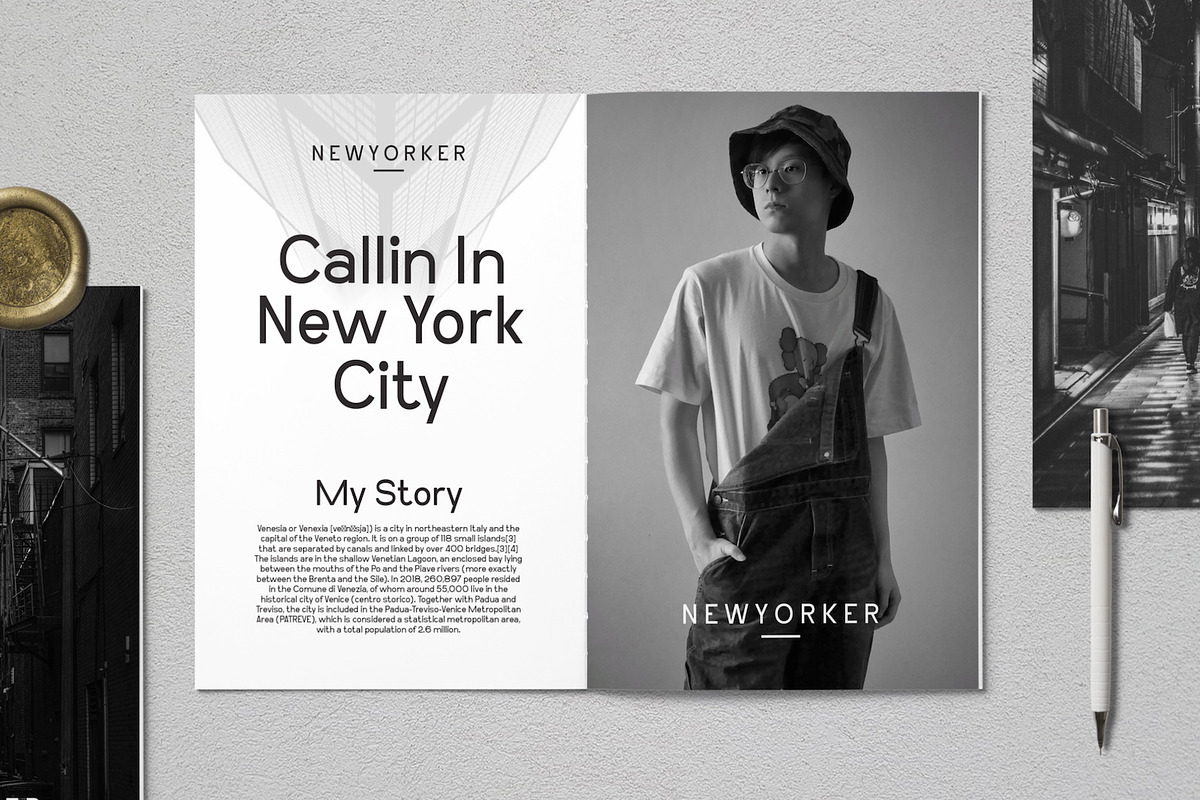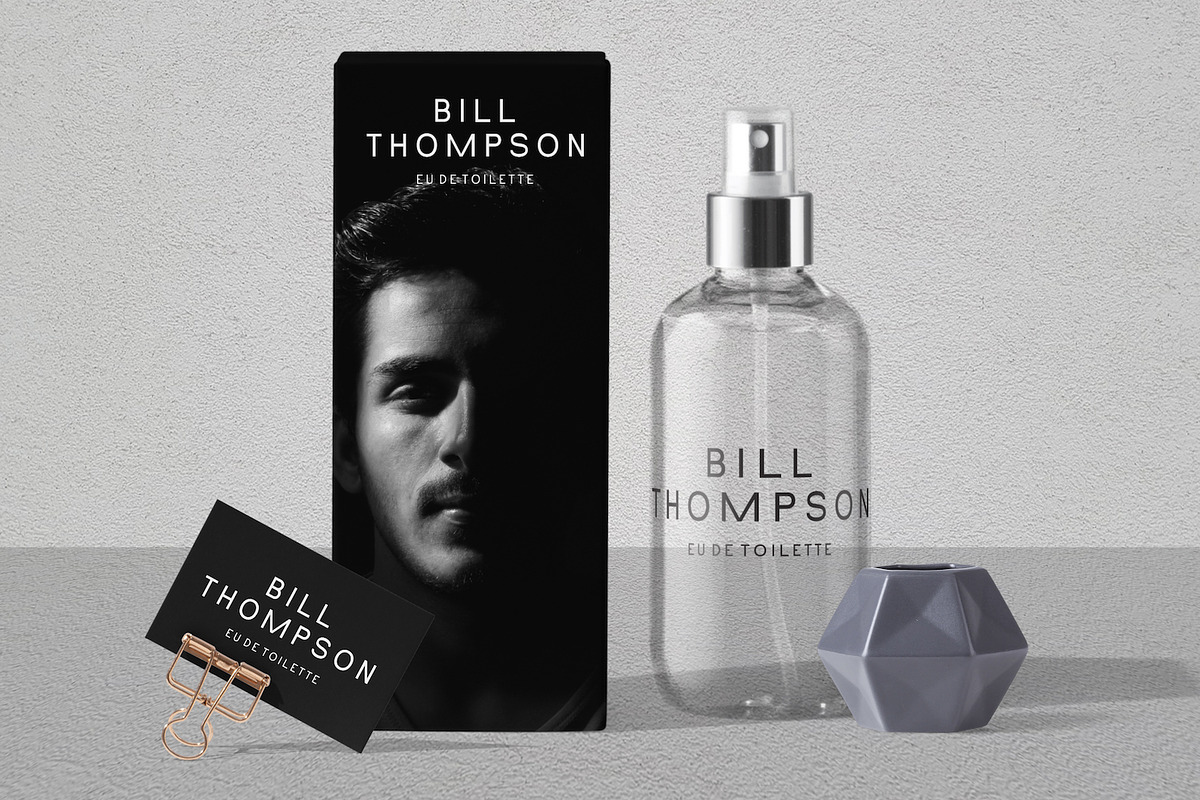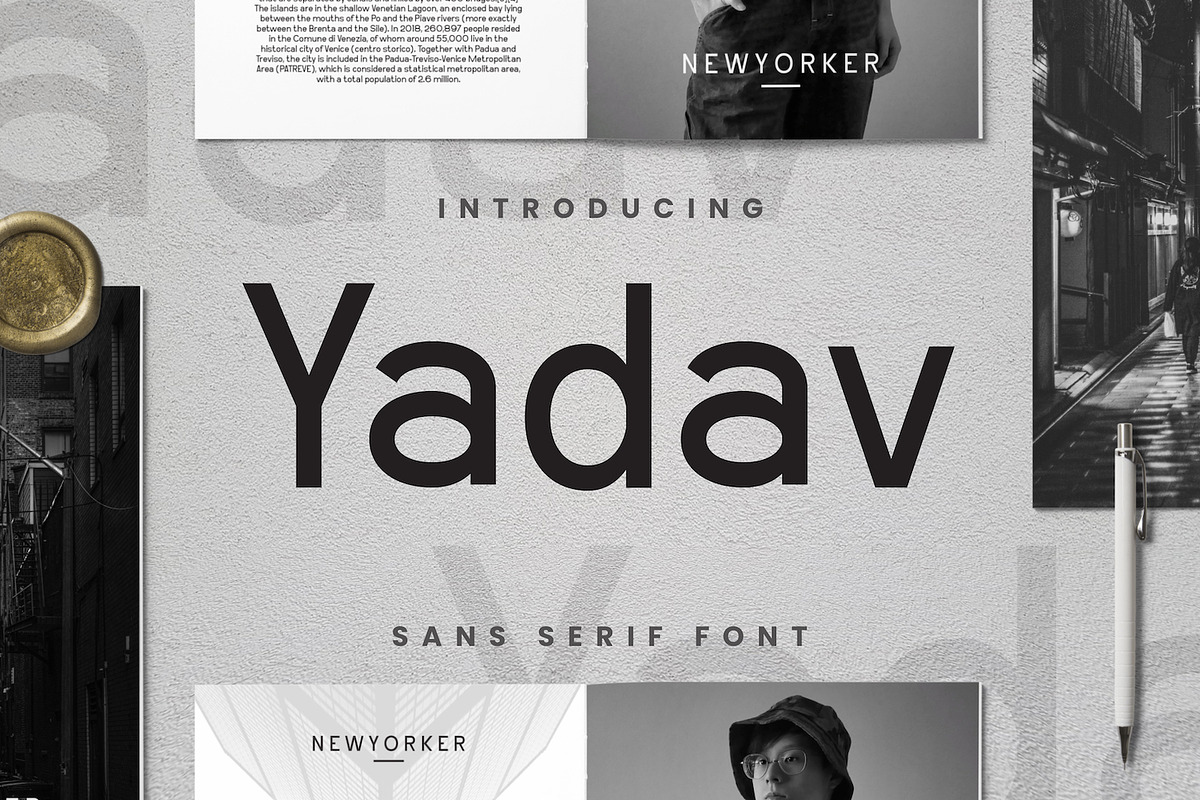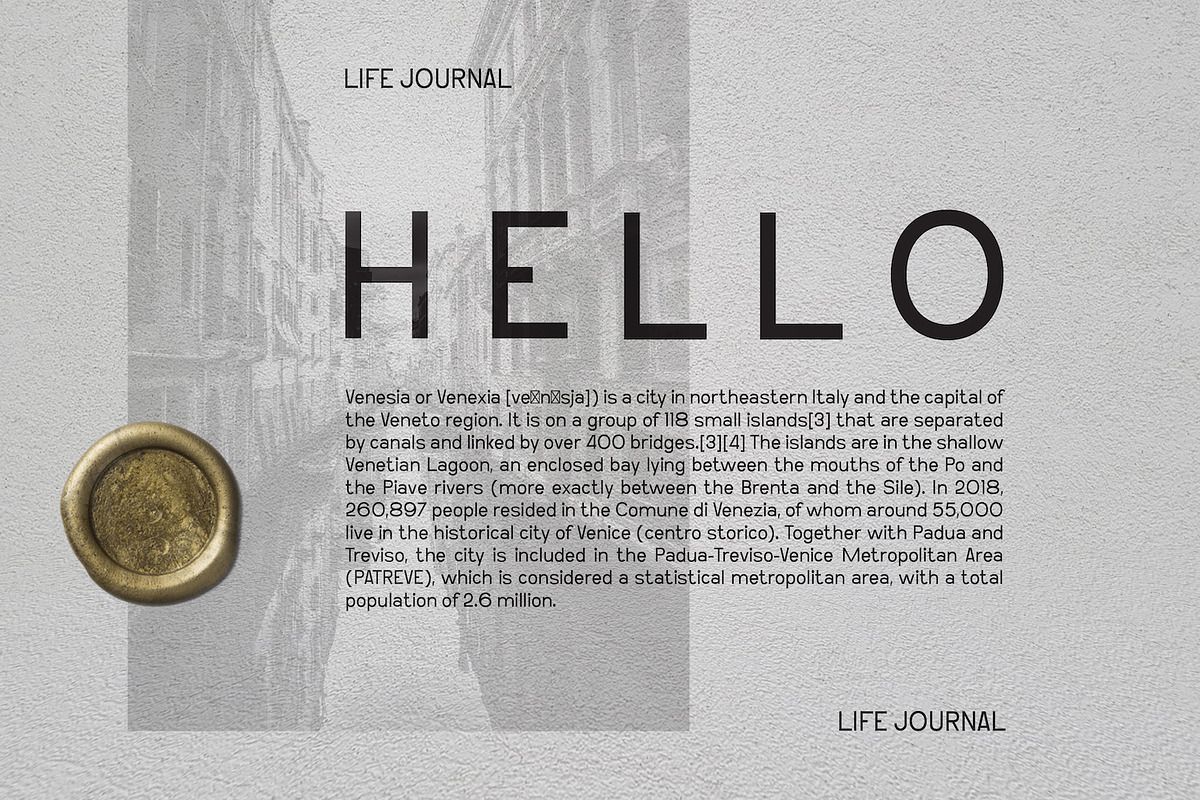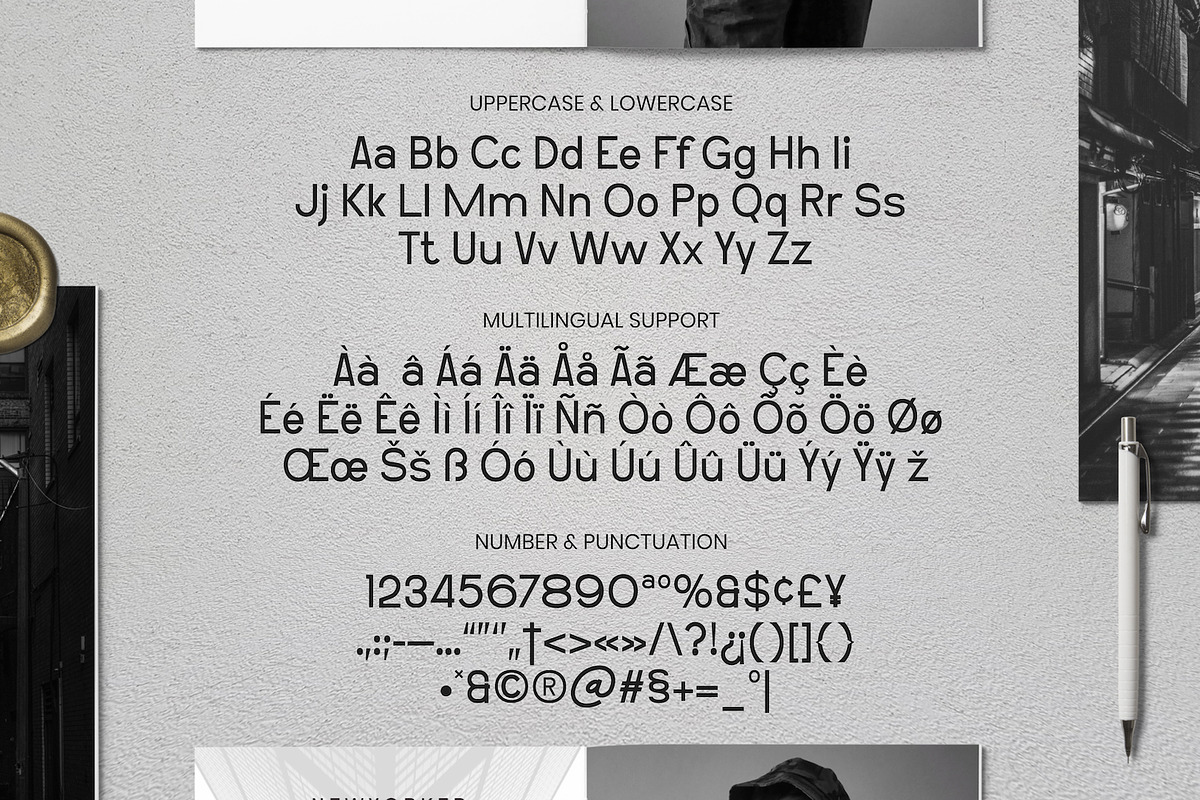
Yadav
Yadav is a sans serif font with visual elegance, smooth curves, and beautiful ligatures clear, making your work look true and attractive.
A very versatile font that works in both large and small sizes. This font is suitable for a wide variety of projects such as invitations, logos, branding, magazine, photography, card, product packaging, mugs, quotes, poster, labels, signatures, and more.
- Punctuation, Number, and Symbol
- Multilingual Support ÀÁÂÃÄÅÆÇÈÉÊËÌÍÎÏÐÑÒÓÔÕÖØÙÚÛÜÝ